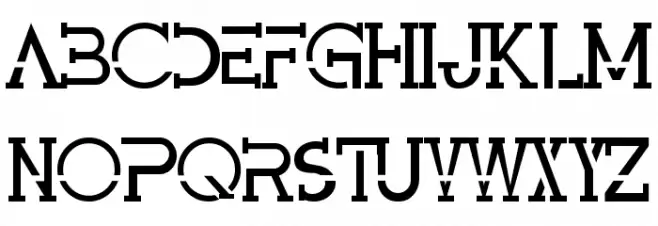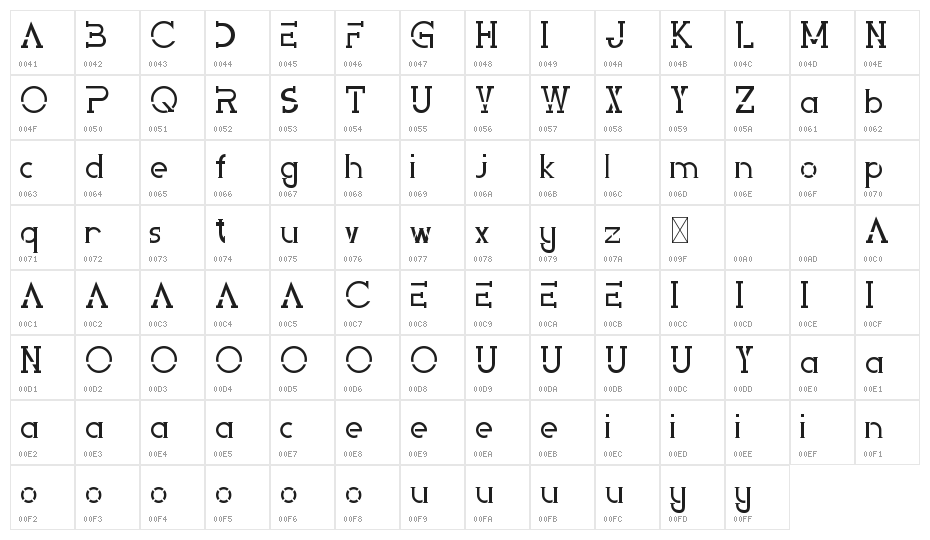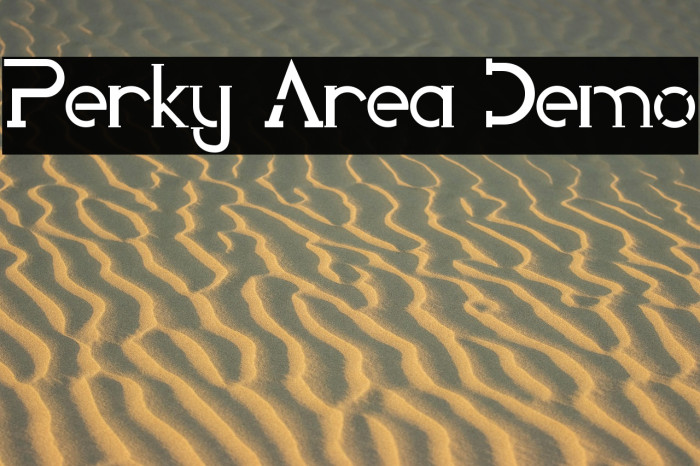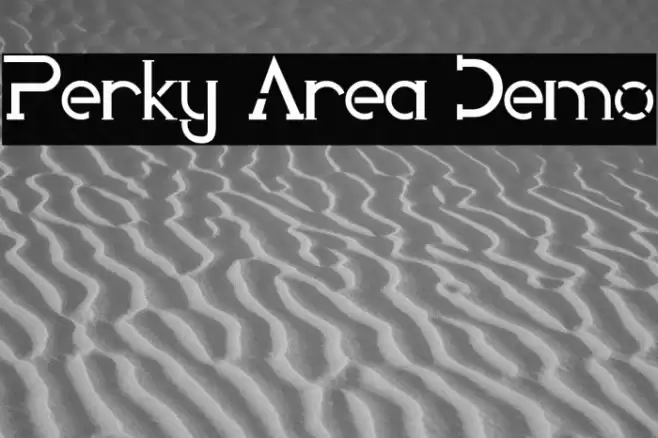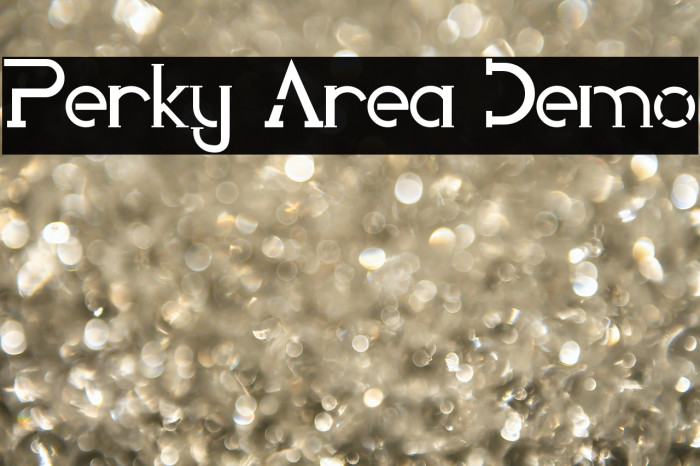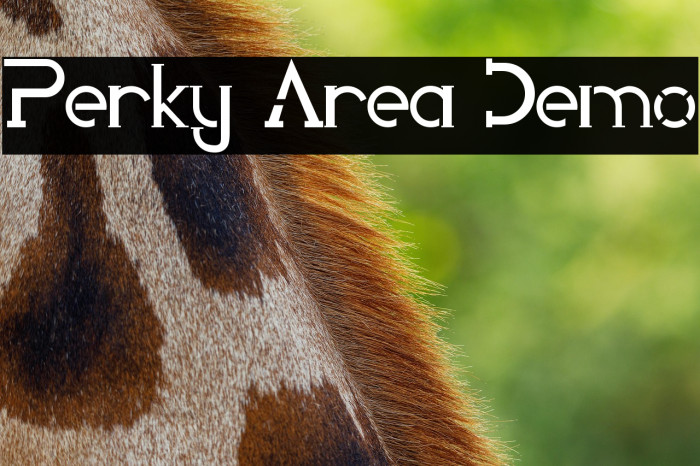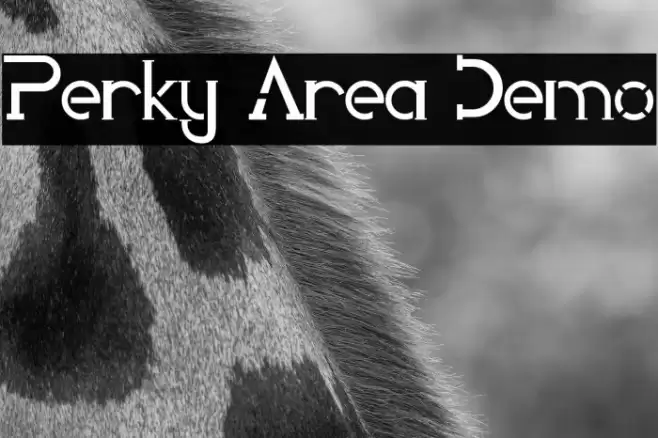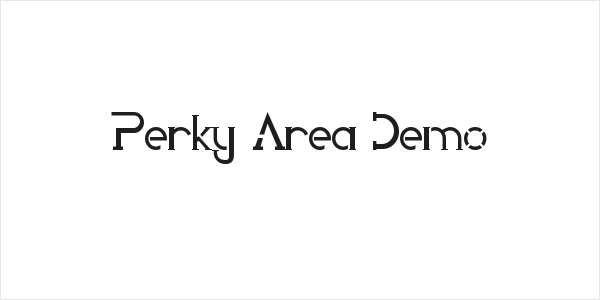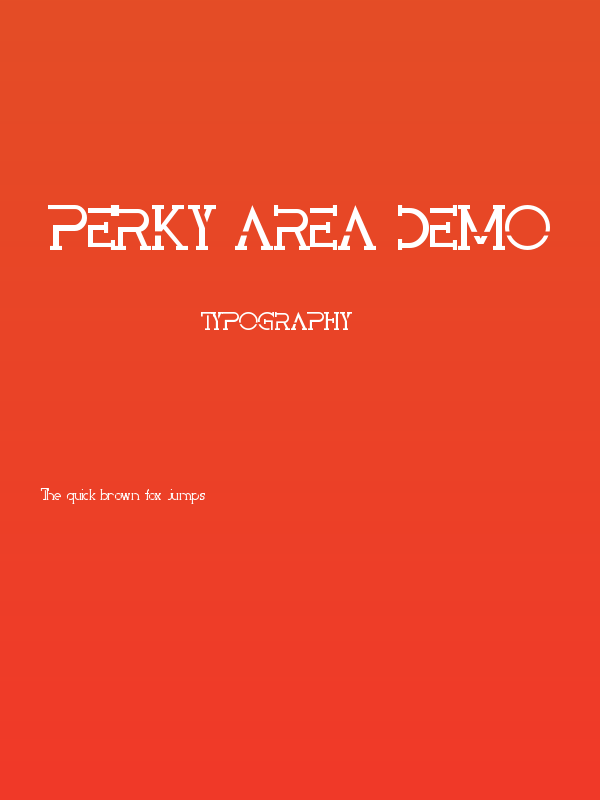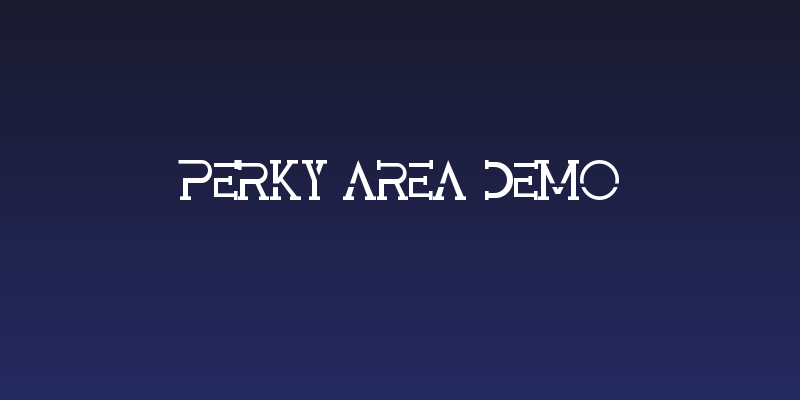
Perky Area Demo Font
Perky Area Demo Description
This font features a bold and striking design with a modern twist. It combines geometric elements with a touch of art deco influence, creating a unique and eye-catching appearance. The uppercase letters are particularly distinctive, with sharp angles and clean lines that give them a futuristic feel. The lowercase letters maintain a consistent style, offering a harmonious blend of curves and straight edges. The numerals and special characters are designed to match the overall aesthetic, ensuring a cohesive look across all text. This font is perfect for projects that require a bold statement and a modern edge.